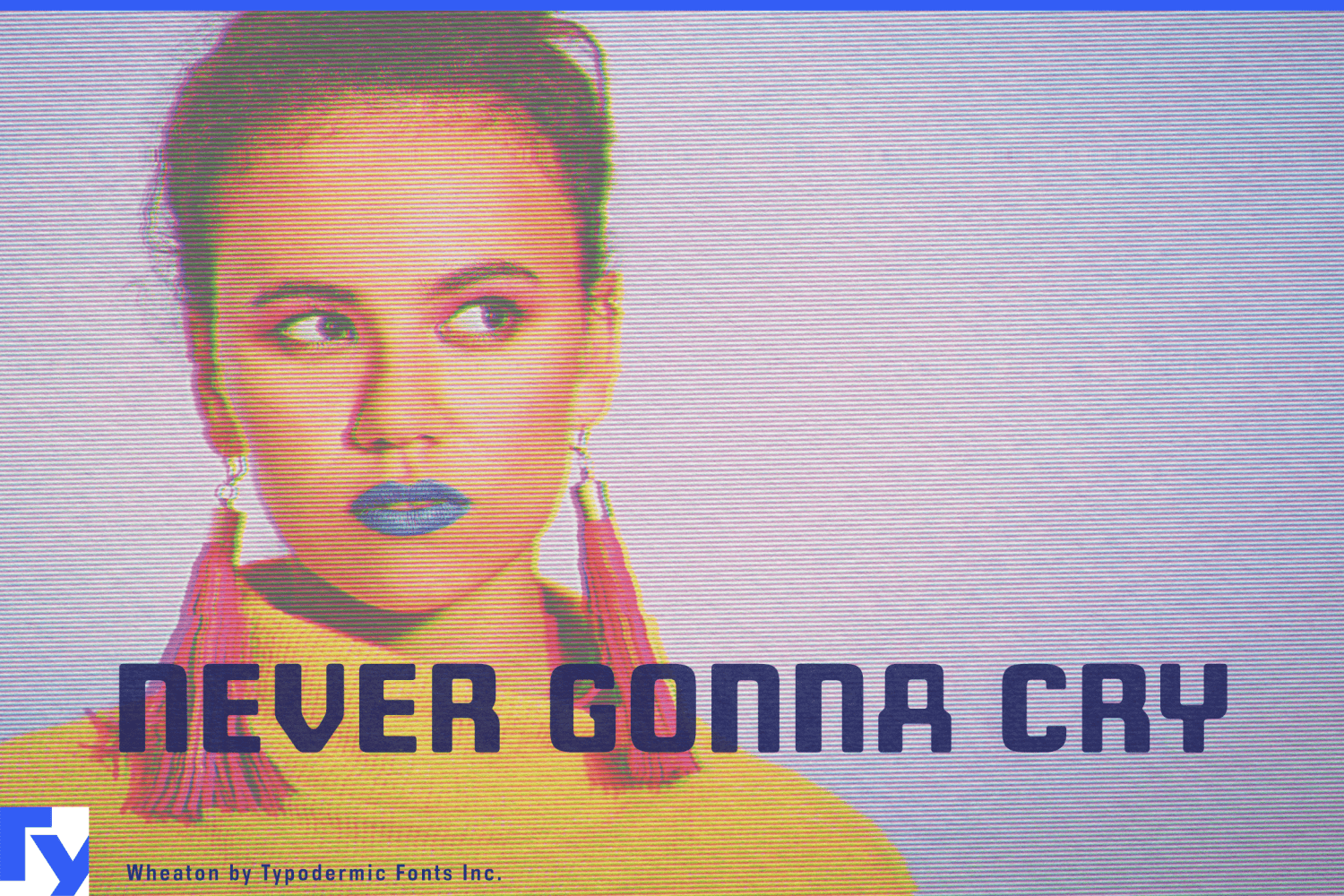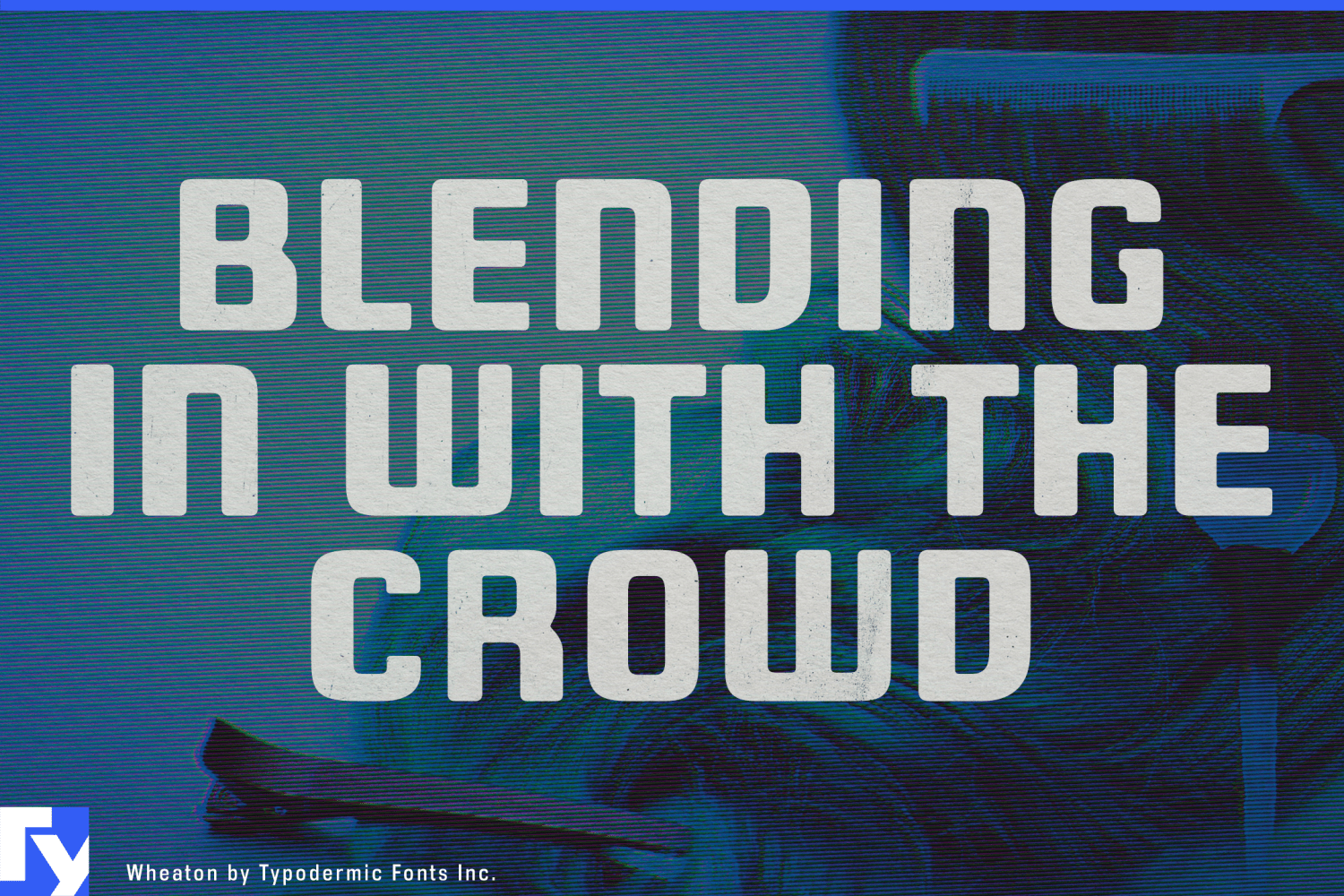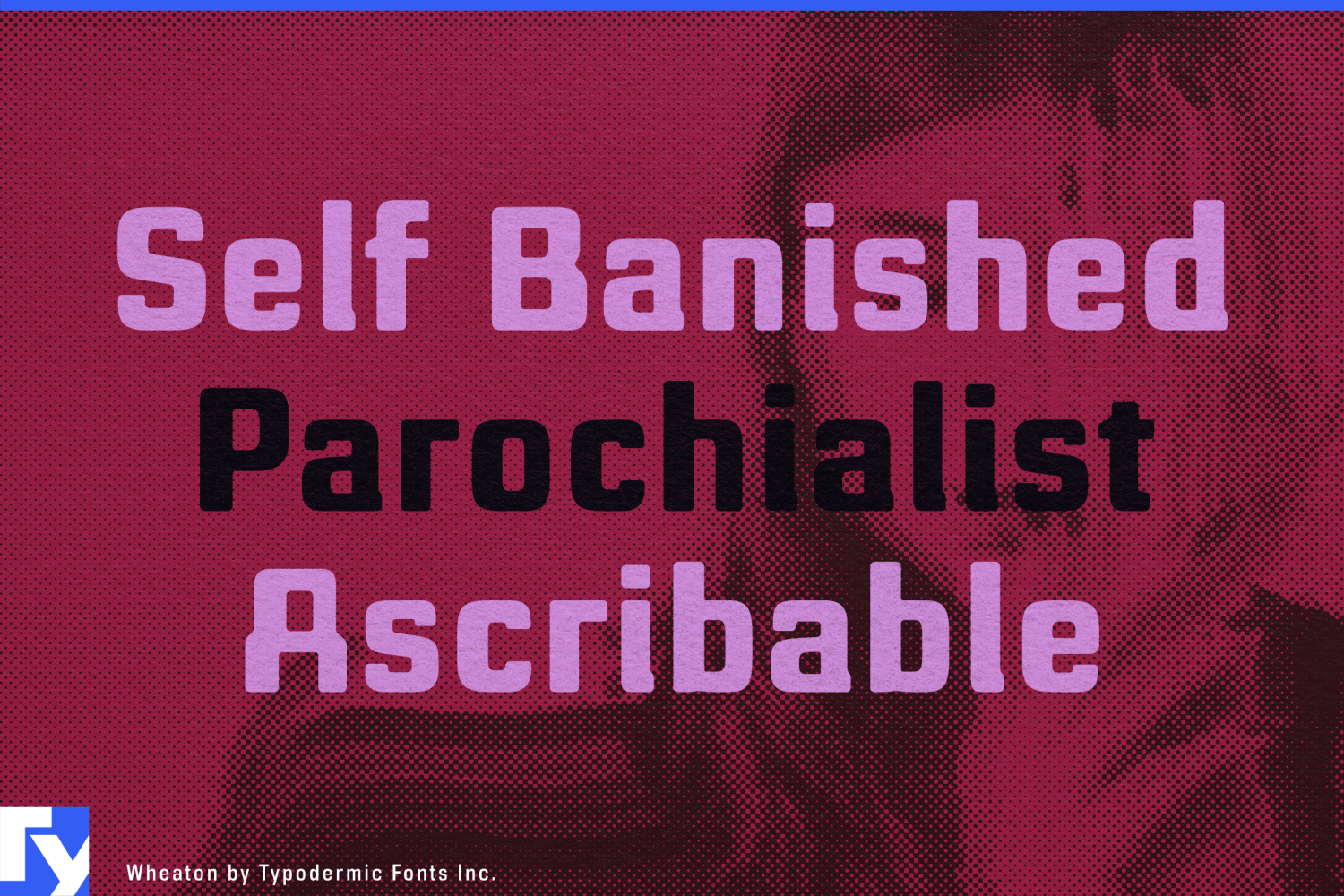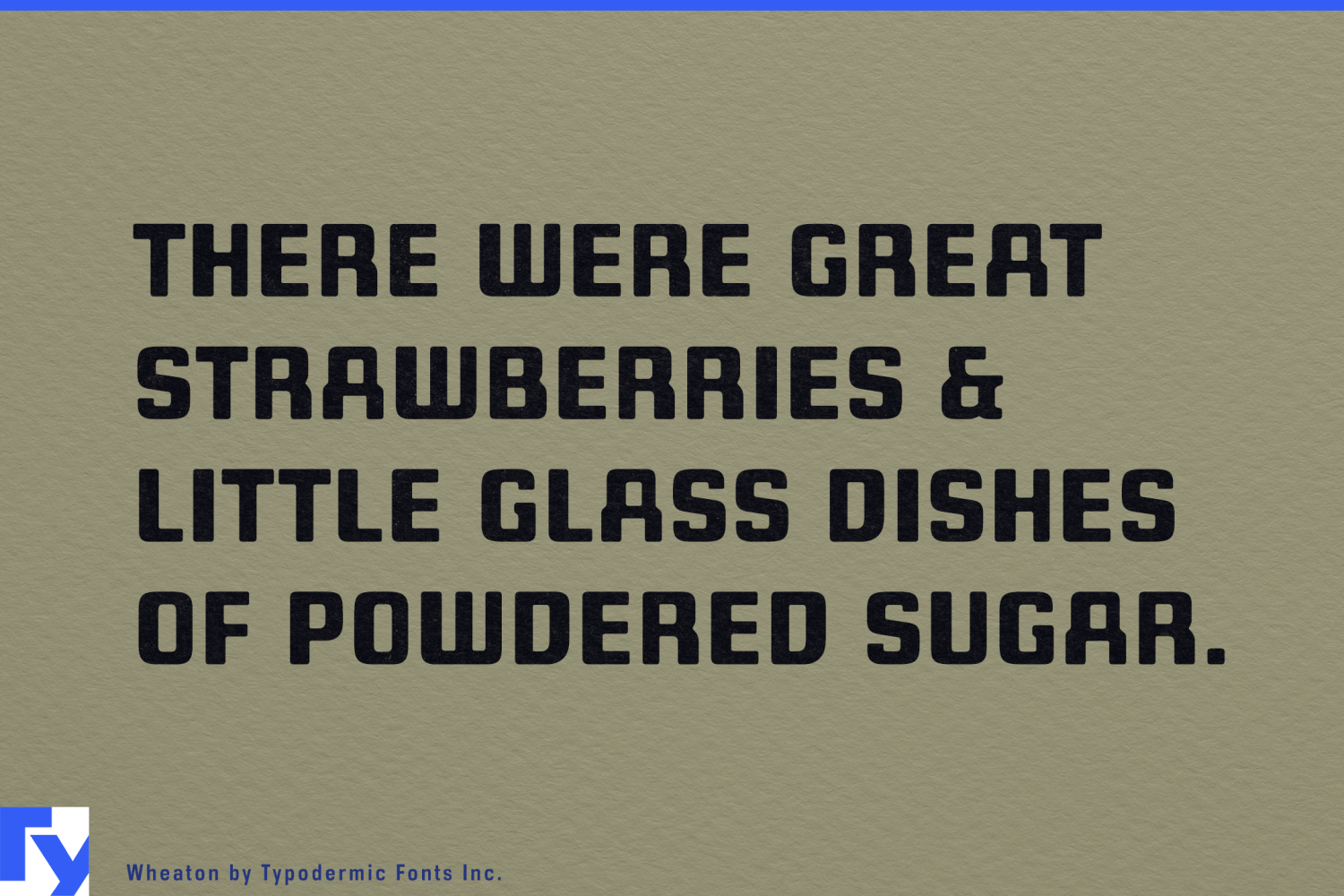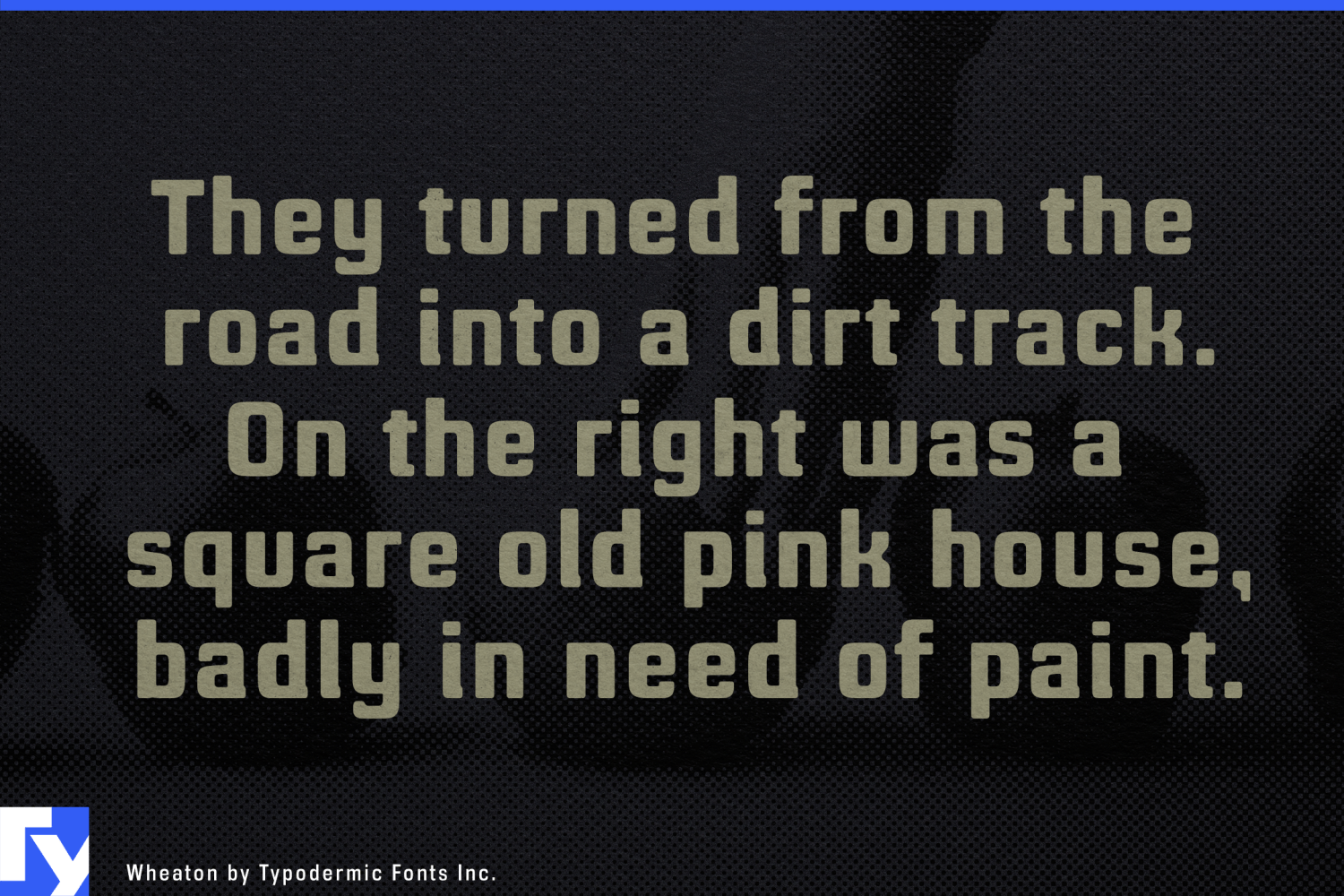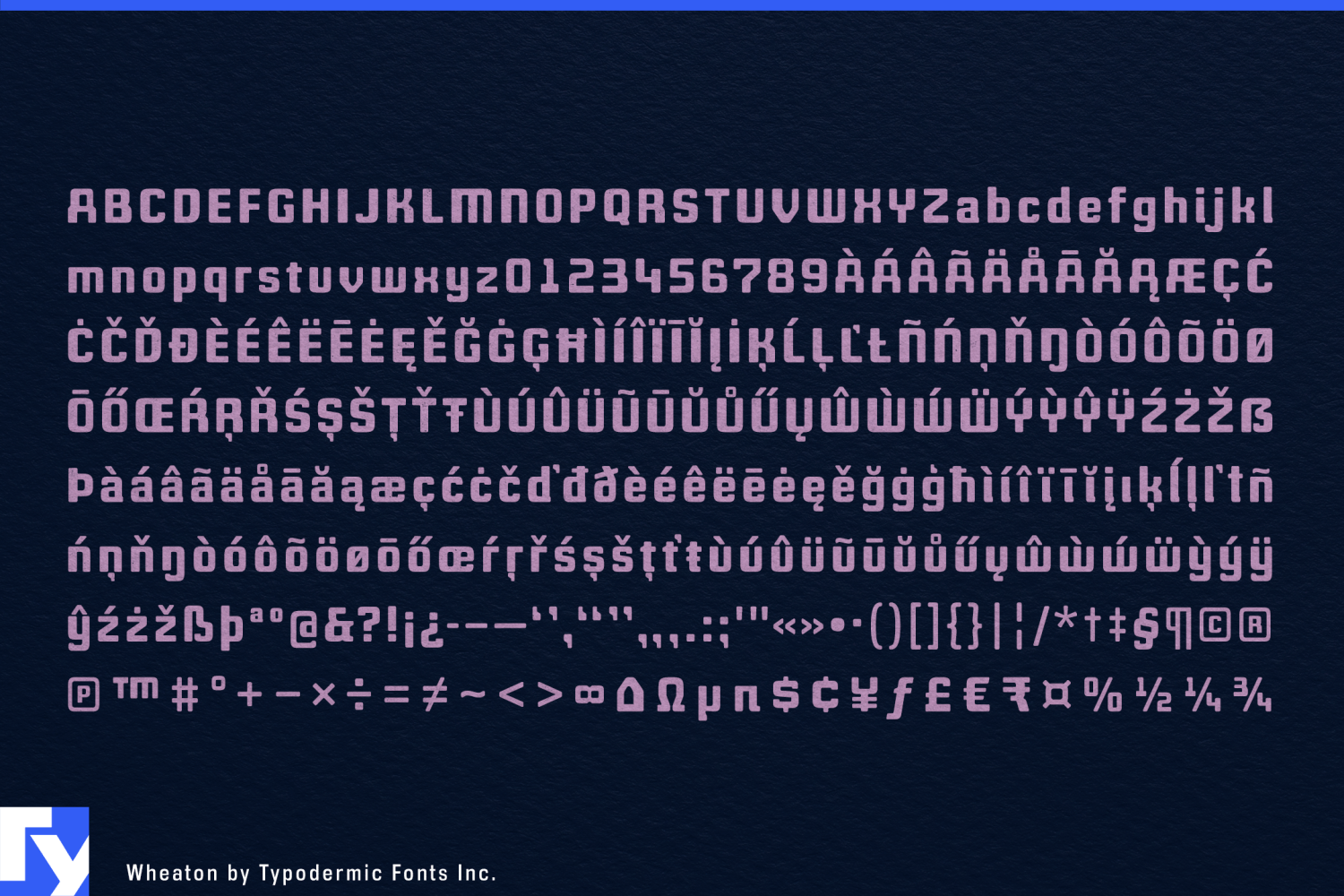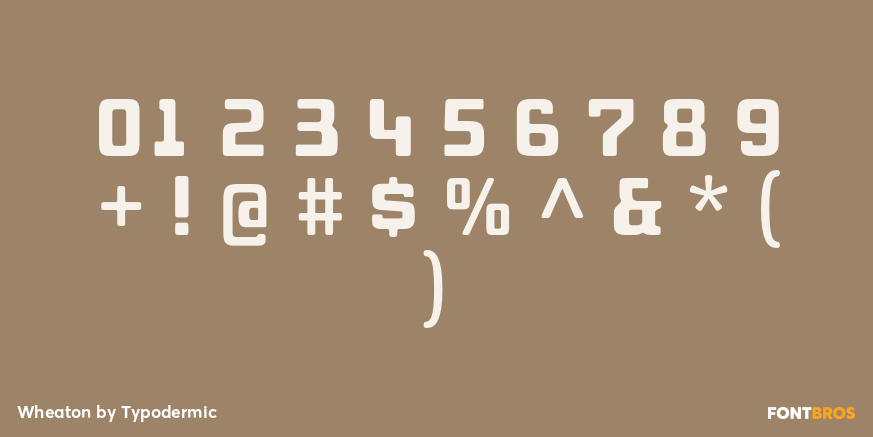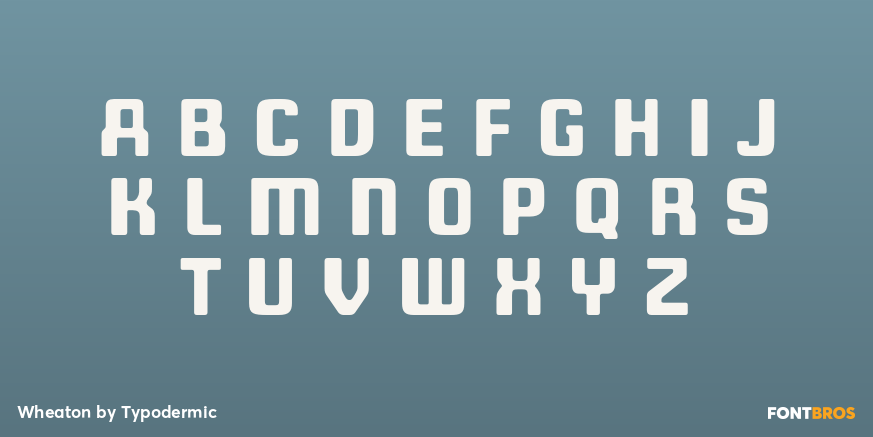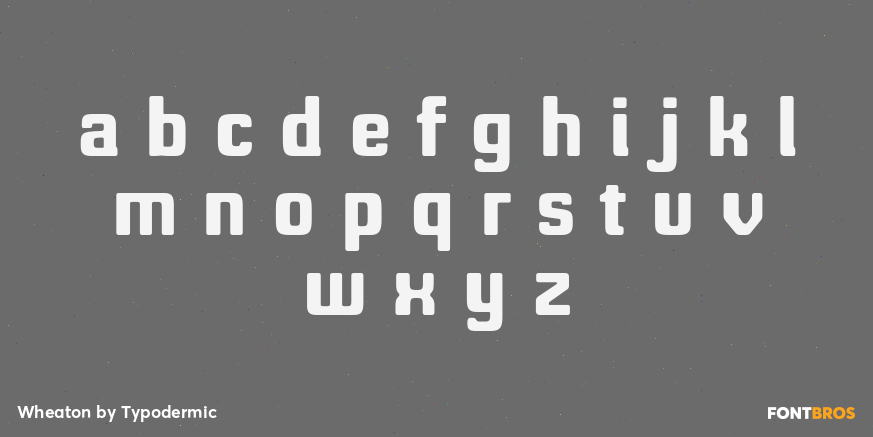
Wheaton
Wheaton takes the magnetic-ink look beyond the bottom of the cheque. It draws on the broader MICR-inspired tradition associated with display faces such as Westminster and Data 70, but does not reproduce a machine-readable standard. Instead, it preserves the squared construction, peculiar interruptions and processed appearance while reducing the extreme contrasts that can make classic MICR lettering difficult to read. The result is a bold display sans with a controlled dose of machine-made strangeness.
Many MICR-inspired alphabets are effective for a short logo or a few isolated capitals, then become exhausting once the novelty begins interfering with the words. Wheaton’s sturdy strokes, compact rhythm and less disruptive shapes hold together across mastheads, title sequences, pull quotes, decks and several lines of large copy. Its lowercase makes mixed-case settings practical, carrying the magnetic-ink flavour beyond a single coded-looking word.
Financial applications are a natural starting point, though they need not resemble traditional banking. Wheaton can frame payment-platform campaigns, fraud-investigation podcasts, financial-crime documentaries, corporate-thriller covers and exhibition graphics about money or automated transactions. The reference is recognizable without becoming a costume; it suggests that the text has passed through some obscure processing system.
That quality also suits subjects involving verification and controlled access. Cybersecurity event titles, identity-management graphics, access-card systems and surveillance-fiction covers can use Wheaton to imply authentication, clearance and institutional technology. For fictional agencies, laboratories and bureaucratic systems, it suggests a visual standard shaped by technical requirements without resorting to the usual stencil, pixel or monospaced computer-font vocabulary.
Wheaton also belongs comfortably in retro electronic culture. Its squared forms and softened corners can evoke early digital equipment, analogue-computing diagrams and vintage broadcast graphics without copying a particular machine or period. Electronic-music sleeves, technology-history exhibits, arcade titles and retro science-fiction paperbacks gain the flavour of MICR lettering without its usual legibility penalty.